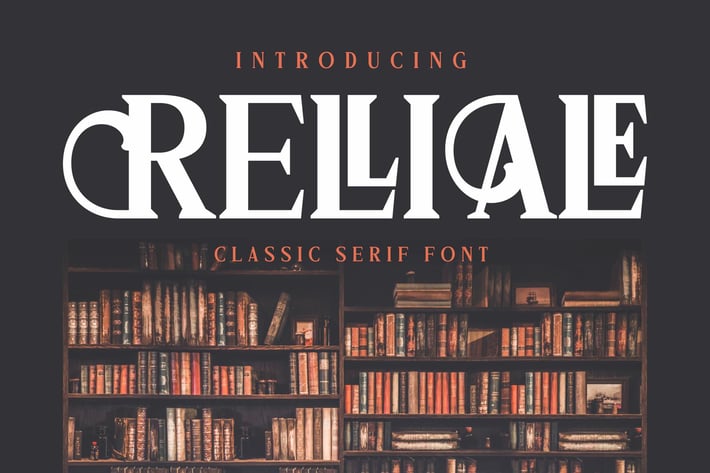
Relliale Serif Font
Relliale Serif is a refined and modern serif font with timeless elegance. Designed with balanced proportions and sharp details, it delivers both sophistication and readability. Perfect for projects that require a professional yet stylish aesthetic, Relliale Serif brings a touch of class to any design.
+ Modern serif with elegant details
+ Uppercase, lowercase, numbers & punctuation
+ Stylish ligatures and alternates
+ Multilingual support
+ Branding & logo design
+ Editorial layouts & magazines
+ Invitations & stationery
+ Luxury packaging
+ Book covers & titles
+ Professional presentations
Elevate your design with Relliale — a modern serif font that blends timeless sophistication with contemporary style.